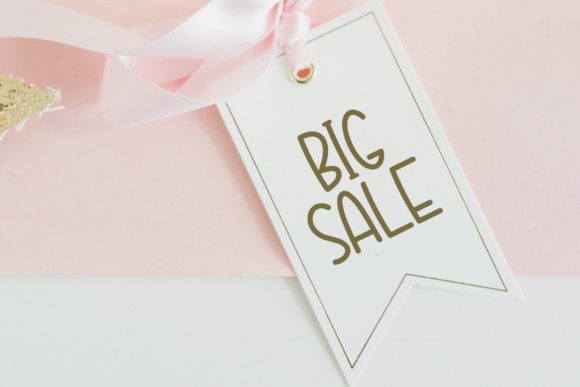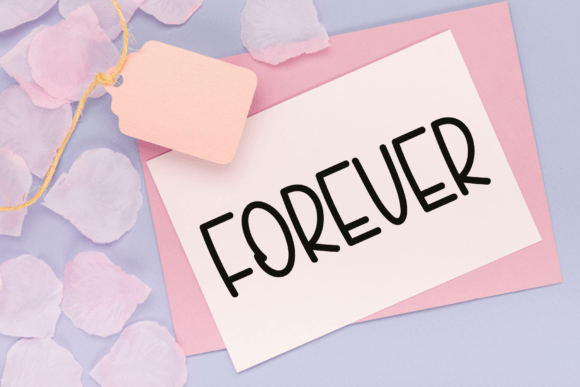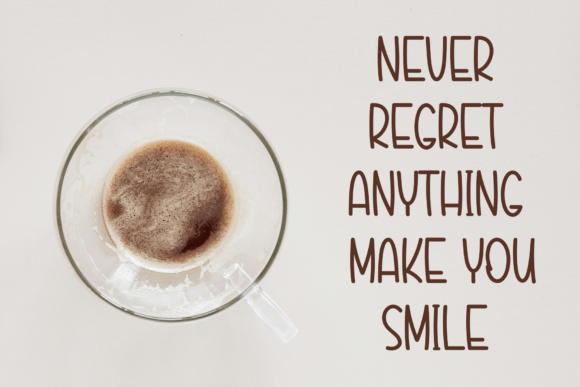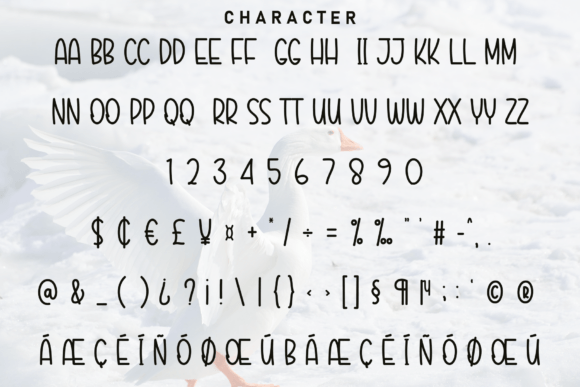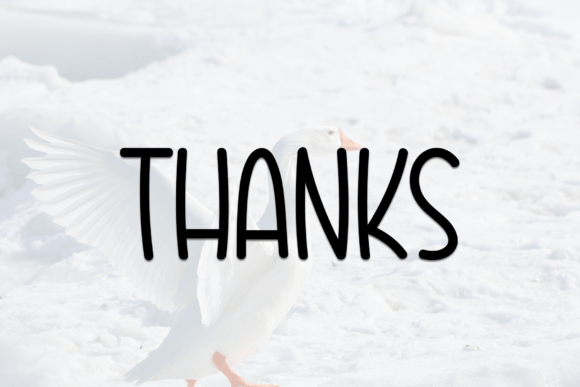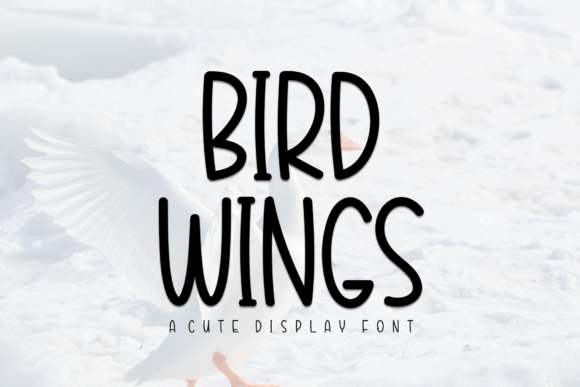
Bird Wings Font: Elevate Your Design with a Relaxed yet Luxurious Touch
In the world of typography, fonts play a crucial role in conveying the tone and personality of a brand or design. For designers and crafters looking for a unique and stylish font that exudes a sense of relaxation and sophistication, Bird Wings Font is an excellent choice. This handwritten font, designed to resemble marker-drawn letters, offers a sporty and elegant feel that’s perfect for a wide range of applications.
What is Bird Wings Font?
Bird Wings Font is a carefully crafted handwritten font that mimics the look of letters drawn with a marker. Its relaxed and casual vibe makes it an ideal choice for designers who want to add a personal touch to their work. Whether you’re creating branding materials, logos, wedding supplies, greeting cards, or marketing promotions, Bird Wings Font is sure to make your design stand out.
Key Features of Bird Wings Font
- Handwritten style: Bird Wings Font boasts a beautiful, handwritten style that gives your design a personal and human touch.
- Marker-like feel: The font’s marker-like texture adds a sporty and casual feel to your design, making it perfect for fashion, lookbooks, and marketing promotions.
- Luxurious and elegant: Despite its casual vibe, Bird Wings Font still manages to convey a sense of luxury and elegance, making it suitable for high-end branding and design projects.
- Versatile: This font is incredibly versatile and can be used for a wide range of applications, from wedding supplies and greeting cards to logos and marketing materials.
Use Cases for Bird Wings Font
Bird Wings Font is an incredibly versatile font that can be used in various design projects. Here are some use cases where this font truly shines:
- Branding and logos: Create a unique and memorable brand identity with Bird Wings Font. Its elegant and sophisticated feel makes it perfect for luxury brands, while its casual vibe suits more relaxed and sporty brands.
- Wedding supplies: Add a touch of elegance and whimsy to your wedding designs, such as invitations, programs, and place cards, with Bird Wings Font.
- Greeting cards: Create beautiful and heartfelt greeting cards for special occasions, like birthdays, anniversaries, and holidays, using Bird Wings Font.
- Fashion and lookbooks: Elevate your fashion designs and lookbooks with Bird Wings Font’s luxurious and sporty feel.
- Marketing promotions: Use Bird Wings Font to create eye-catching marketing materials, such as flyers, brochures, and social media graphics, that grab attention and convey a sense of sophistication.
Tips for Using Bird Wings Font
To get the most out of Bird Wings Font, here are some tips to keep in mind:
- Pair with contrasting fonts: Combine Bird Wings Font with a contrasting font to create visual interest and add depth to your design.
- Experiment with colors: Try pairing Bird Wings Font with different colors to create a unique and eye-catching design.
- Use for headlines and titles: Bird Wings Font is perfect for headlines and titles, where its elegant and sophisticated feel can shine.
- Add texture and graphics: Consider adding texture and graphics to your design to complement Bird Wings Font and create a more dynamic look.
Bird Wings Font is a beautiful and versatile font that offers a unique blend of elegance, sophistication, and casual charm. Its relaxed and sporty feel makes it perfect for a wide range of design applications, from branding and logos to wedding supplies and marketing promotions. With its marker-like texture and handwritten style, Bird Wings Font is sure to elevate your design and add a touch of luxury and whimsy. Whether you’re a designer or crafter, Bird Wings Font is an excellent choice for anyone looking to create stunning and memorable designs.